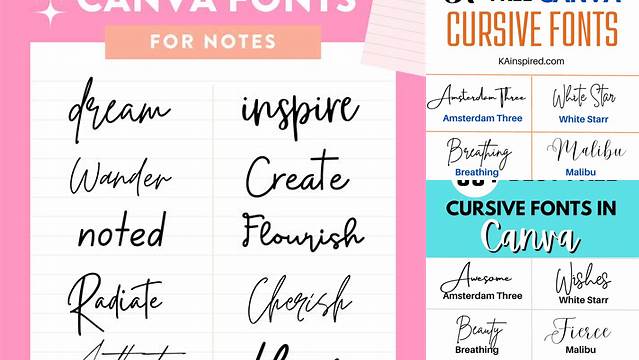
Top Free Cursive Fonts On Canva: The Ultimate Guide
Choosing the right font can make or break your design. If you're looking for elegance and a personal touch, cursive fonts are the way to go. And the best part? Canva offers a fantastic selection of free cursive fonts. Let's dive into the best free cursive fonts on Canva and how to use them effectively.
1. Introduction to Cursive Fonts on Canva
Canva is a powerful design tool, but finding the perfect font can sometimes feel like searching for a needle in a haystack. Cursive fonts bring a touch of sophistication and personality to your projects. Whether you're designing invitations, logos, or social media graphics, the right cursive font can elevate your work. The great thing about Canva is that it offers many options, even if you're on a budget. You don't need to pay a premium to access beautiful, high-quality cursive fonts. Understanding the basics of cursive fonts is essential before you start using them. Cursive fonts mimic handwriting, with letters typically connected in a flowing manner. However, not all cursive fonts are created equal. Some are elegant and formal, while others are playful and casual. Knowing the difference will help you choose the best font for your specific needs. Always consider the readability of the font. A beautiful cursive font that's difficult to read won't be effective. Ensure the font is clear and legible, especially when used in smaller sizes or for body text. Lastly, think about the overall tone and style of your design. The font should complement the other elements and enhance the message you're trying to convey.
2. Why Choose Cursive Fonts for Your Designs?
Why should you even consider cursive fonts? Well, cursive fonts are all about adding a touch of personality and flair to your designs. They can make your project feel more personal, elegant, and even handmade. Think about it – a cursive font on an invitation implies a special event, care, and attention to detail. They're great for projects that need a human touch. For example, if you're designing a logo for a boutique or a handwritten note for a thank you card, cursive fonts bring a level of warmth that other fonts simply can't match. Plus, they stand out! In a world dominated by standard, blocky fonts, a well-chosen cursive font can help your design grab attention and leave a lasting impression. They're perfect for headings, titles, and accents where you want to make a statement. But remember, with great power comes great responsibility. Use cursive fonts sparingly to avoid overwhelming your design. Too much cursive can make your text hard to read and dilute the impact. Choose wisely and use them to highlight key elements that you want to emphasize.
3. Script Fonts vs. Cursive Fonts on Canva
Let's clear up a common misconception: are script fonts and cursive fonts the same thing? Well, not exactly. While the terms are often used interchangeably, there's a subtle difference. Cursive fonts are designed to mimic handwriting, with letters usually connected. Script fonts are a broader category that includes various handwriting-style fonts, which may or may not have connected letters. On Canva, you'll find both types under various categories, so it's essential to know what you're looking for. When searching for a font, think about the specific look you want to achieve. Do you want a font that flows seamlessly from one letter to the next, like a classic signature? Or do you prefer a more stylized script with individual letters that still evokes a handwritten feel? Understanding the nuances between script fonts and cursive fonts helps you narrow down your choices and find the perfect match for your project. Canva makes it easy to browse and preview fonts, so take advantage of this feature to see how different fonts look with your text.
4. List of the Best Free Cursive Fonts on Canva
Alright, let’s get to the good stuff. Here is a list of some of the best free cursive fonts you can find right now on Canva. There are plenty of options, you just need to know where to look. This list will give you a head start and showcase some excellent typography options. The best free cursive fonts on Canva include things like:
- Brusher: Bold and modern
- Great Vibes: Classic and elegant
- Playlist Script: Playful and casual
- Dancing Script: Fun and whimsical
- Lobster Two: Unique and eye-catching
Each of these free cursive fonts has its own unique charm and can be used in a variety of design projects. Experiment with different cursive fonts to see which one best fits your style and the message you're trying to convey. Don't be afraid to mix and match cursive fonts with other font styles to create a visually appealing contrast. Canva's intuitive interface makes it easy to test out different combinations and find the perfect balance.
6. Using Font Combinations with Cursive Fonts
One of the best ways to make your design pop is by pairing cursive fonts with other font styles. A cursive font is often best used for headings or accents, while a simpler, more readable font is used for the body text. For example, you could pair a bold cursive font like Brusher with a clean sans-serif font like Open Sans. This combination creates a visual contrast that's both eye-catching and easy to read. Another popular pairing is a classic cursive font like Great Vibes with a traditional serif font like Playfair Display. This combination exudes elegance and sophistication, making it perfect for invitations or branding materials. When choosing font combinations, consider the overall tone of your design. If you're going for a modern look, pair a cursive font with a minimalist sans-serif font. If you want a more traditional feel, opt for a serif font with a classic cursive font. Experiment with different font sizes and weights to create visual hierarchy. Use a larger font size for headings and a smaller font size for body text. Bold or italicize certain words or phrases to emphasize important information. Canva's font pairing suggestions can be a great starting point, but don't be afraid to try out different combinations on your own. The key is to find a balance between visual interest and readability.
7. Best Cursive Fonts for Invitations
Creating invitations? Cursive fonts are your best friend. They add that touch of elegance and personalization that makes an invitation feel special. For wedding invitations, cursive fonts like Great Vibes or Allura are excellent choices. They're classic, refined, and convey a sense of formality. For birthday invitations or other casual events, you can opt for a more playful cursive font like Dancing Script or Playlist Script. These cursive fonts are fun, whimsical, and perfect for setting a lighthearted tone. When using cursive fonts on invitations, make sure the text is easy to read. Avoid using overly ornate cursive fonts that can be difficult to decipher. Stick to cursive fonts that have clear, legible letterforms. Also, consider the color of your font. A dark cursive font on a light background is always a safe bet. Avoid using light cursive fonts on light backgrounds, as this can make the text difficult to see. Use cursive fonts sparingly to highlight key information, such as the names of the hosts, the date, time, and location of the event. Pair your cursive font with a simple, easy-to-read font for the body text. This will ensure that all the essential details are clear and legible. With the right cursive font, your invitations will make a lasting impression.
8. Top Cursive Fonts for Logos
Cursive fonts can add a unique touch to your logo design, making it stand out and feel more personalized. However, choosing the right cursive font for a logo requires careful consideration. A logo is a brand's visual identity, so it needs to be both memorable and legible. For a logo that exudes elegance and sophistication, consider cursive fonts like Madina Script or Hello Stockholm. These cursive fonts have a refined, upscale feel that's perfect for luxury brands or businesses that want to convey a sense of exclusivity. If you're looking for a more playful and approachable logo, opt for cursive fonts like Lemon Tuesday or Milkshake. These cursive fonts are fun, quirky, and perfect for brands that want to connect with a younger audience. When using cursive fonts in a logo, keep it simple. A logo should be easy to recognize and remember, so avoid using overly complicated or ornate cursive fonts. Make sure the cursive font is legible, even when the logo is scaled down. Test the logo in various sizes to ensure that the text remains clear and readable. Pair your cursive font with a simple graphic or icon to create a balanced and visually appealing logo. A well-designed logo with a cursive font can help your brand make a strong and lasting impression.
19. Understanding Font Licensing for Cursive Fonts
Before using any cursive font in your designs, it's crucial to understand font licensing. Font licenses dictate how you're allowed to use a particular font. Some cursive fonts are free for both personal and commercial use, while others have restrictions. For example, a cursive font might be free for personal projects but require a license for commercial use, such as in logos or marketing materials. It's your responsibility to ensure that you're complying with the font license. Using a cursive font without the proper license can lead to legal issues. Check the font designer's website or the font's documentation for licensing information. Many free cursive fonts come with a